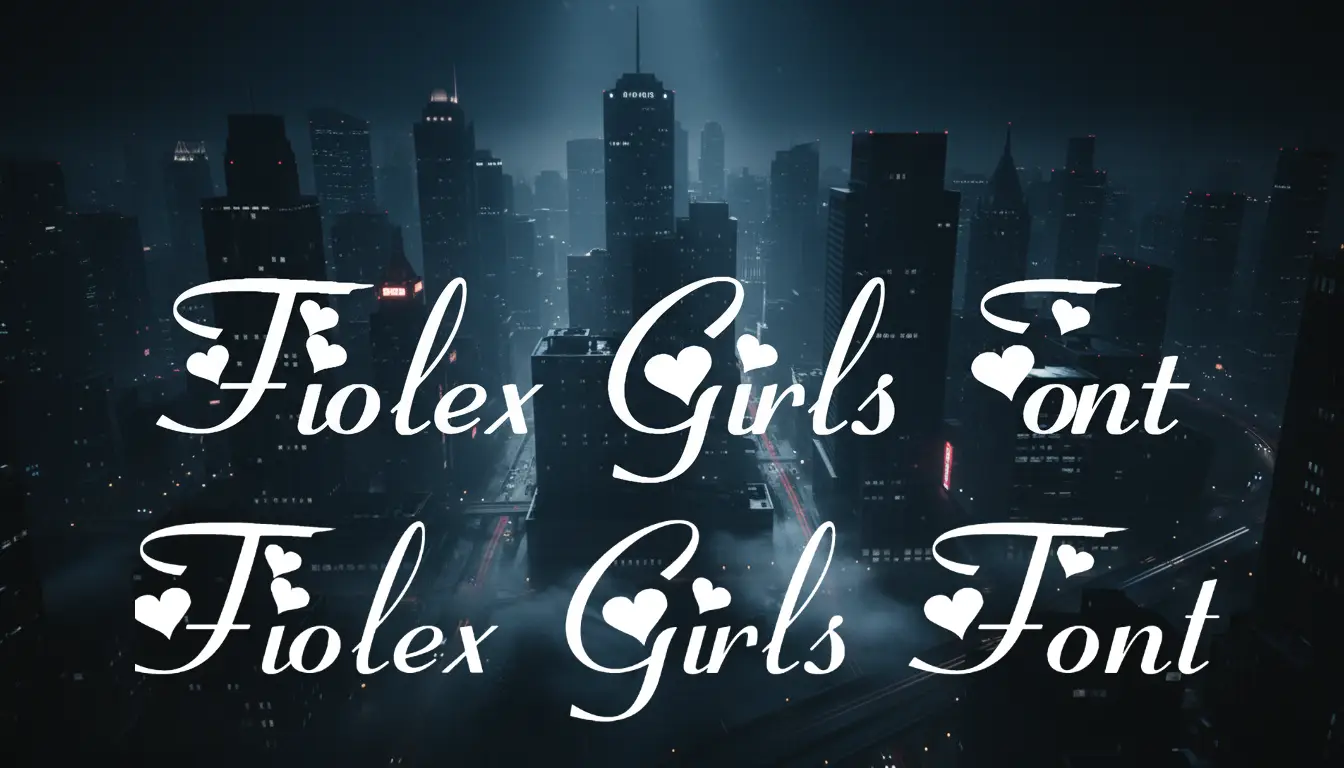
Fiolex Girls Font
Fiolex Girls
Fiolex Girls is a Valentine font. It has a loving, romantic feel that fits Valentine designs perfectly. You can download it for free and test it with your own words in the preview above.
With complete upper and lowercase letters and all ten digits, Fiolex Girls is ready for real wording, not just a single headline. Everyday marks like &, !, ? and @ are there too. Thanks to its accented letters, it also works for Spanish, French, German, Portuguese and Italian, not just English.
Designers usually reach for fonts like Fiolex Girls when they're making Valentine's cards, love notes and romantic invites. Try it in red, pink or rose gold, and keep the message short and sweet.
Yes. Fiolex Girls includes the accented letters needed for Spanish, French, German, Portuguese and Italian, so it works for more than just English.
A light serif or a delicate sans serif keeps the rest of the card just as soft.